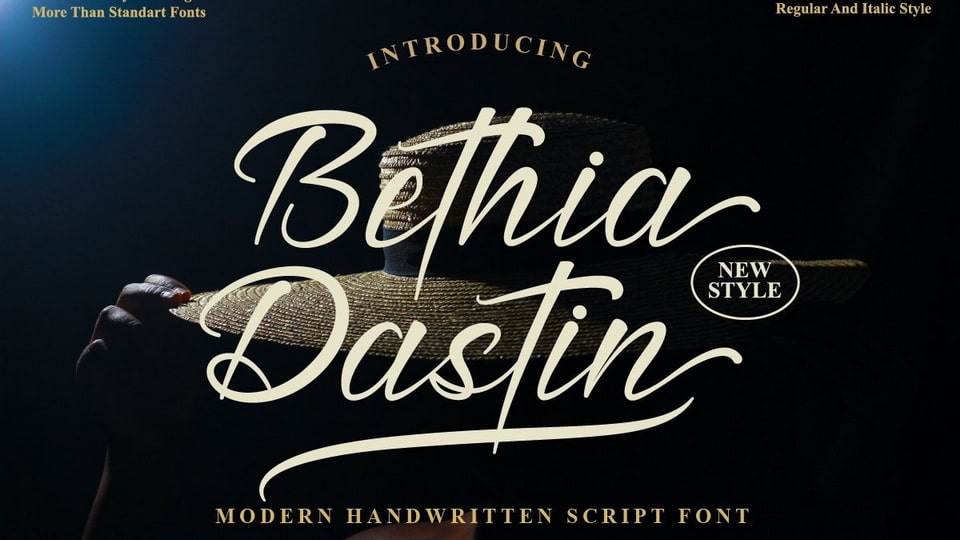
Download Bethia Dastin font, a unique and elegant handwritten typeface. Bethia Dastin looks beautiful on a variety of designs requiring a personalized style.